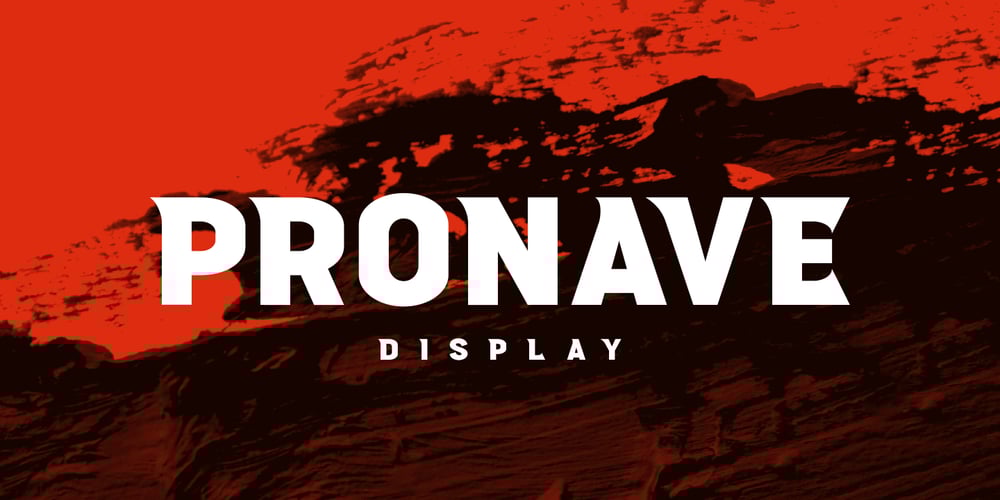
Pronave Font Family was designed by Abdul Malik Wisnu and published by Almarkha Type. Pronave contains 1 styles and family package options. Introducing Pronave – Display with strong and challenging nuances. very suitable for the title, logo, typography, clothes, magazines, brochures, packaging and much more for your design needs, making your designs more modern and professional. Caps Only Fonts.What’s Included :Standard glyphsWeb FontWorks on PC & MacSimple installationsAccessible in the Adobe Illustrator, Adobe Photoshop, Adobe InDesign, even work on Microsoft Word. PUA Encoded Characters – Fully accessible without additional design software. Fonts include multilingual supportImage used : All photographs/pictures/vector used in the preview are not included, they are intended for illustration purpose only.Cheers!Thank You